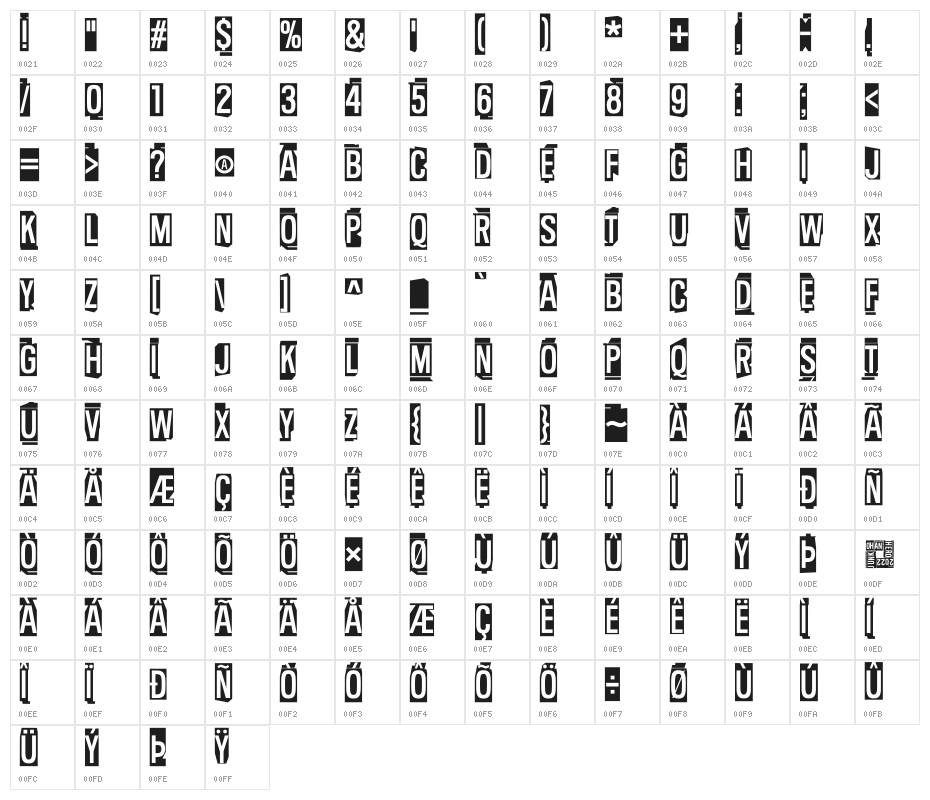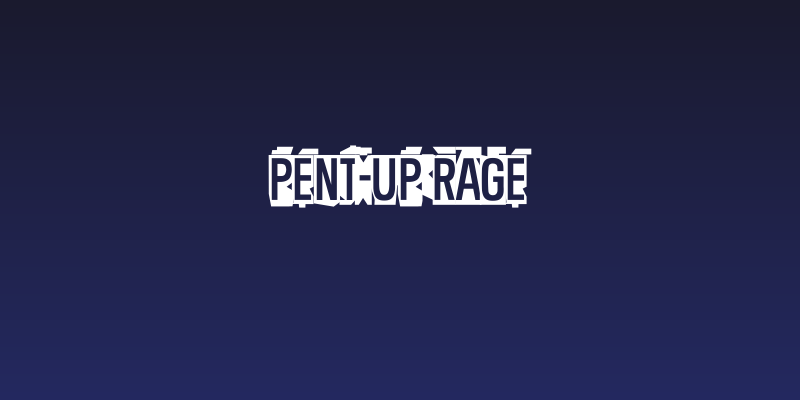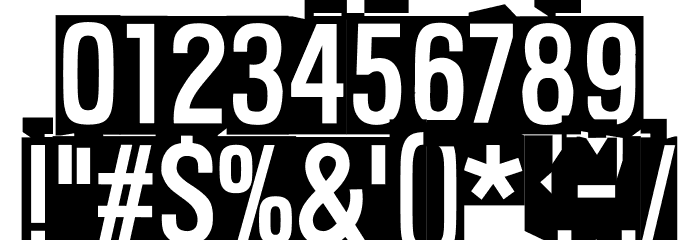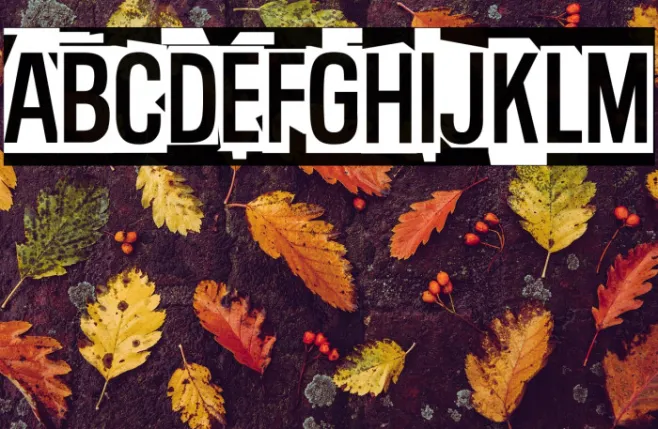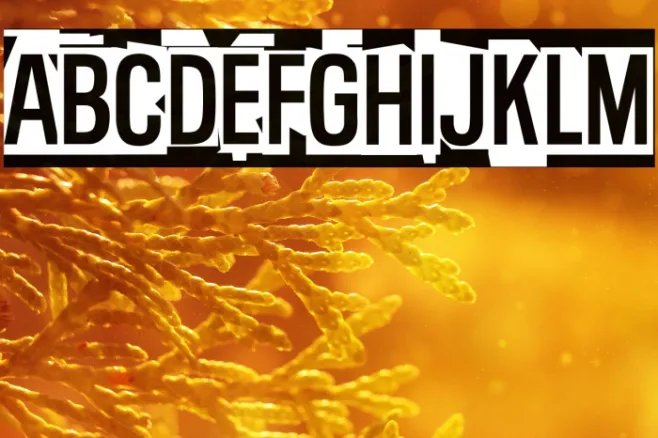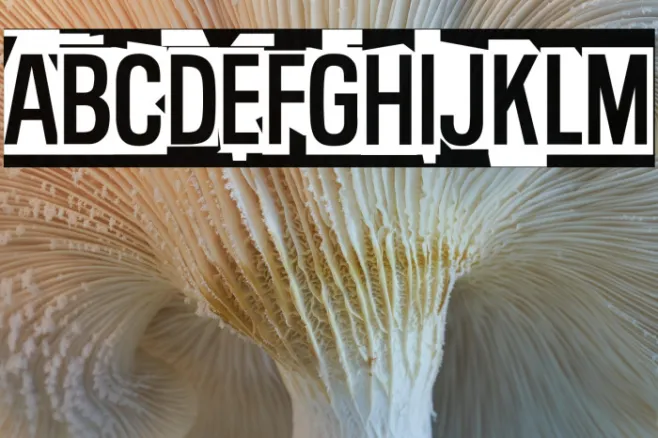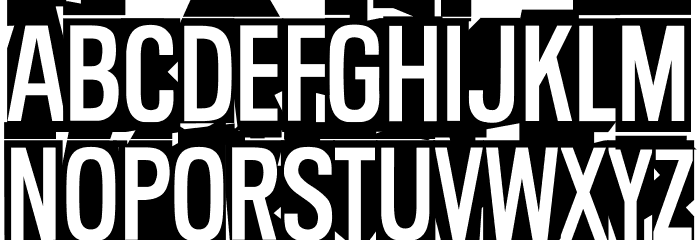
Pent-Up Rage Font
Pent-Up Rage Description
This font features a bold and impactful design with strong, thick strokes that convey a sense of power and urgency. The characters are uniformly wide, creating a consistent and cohesive look across all letters and numbers. The uppercase and lowercase letters maintain a geometric and modern aesthetic, with clean lines and sharp edges. The numerals are equally bold, ensuring they stand out in any context. Special characters are included, matching the robust style of the alphabet. This font is ideal for making a statement, with its high visibility and strong presence.